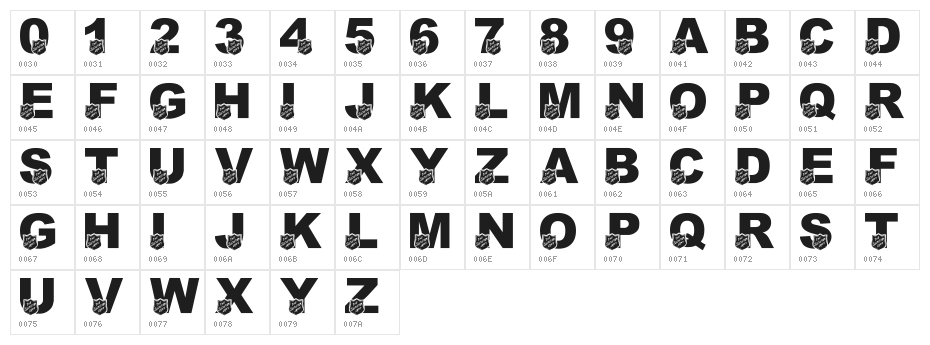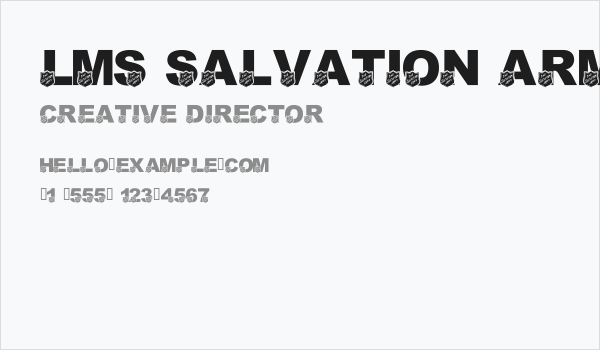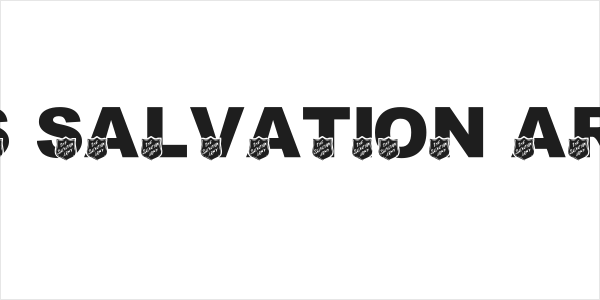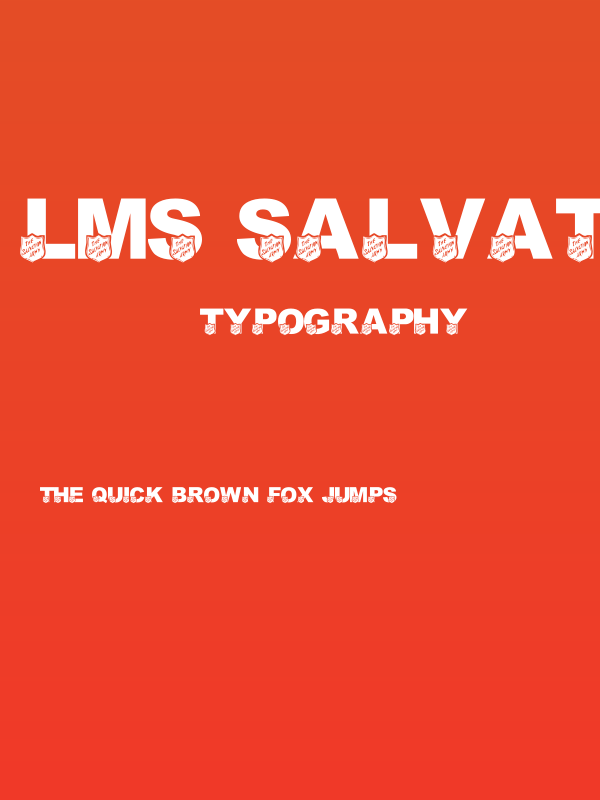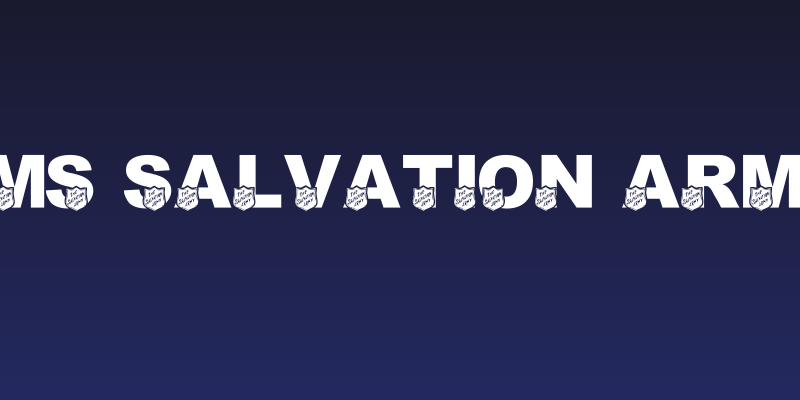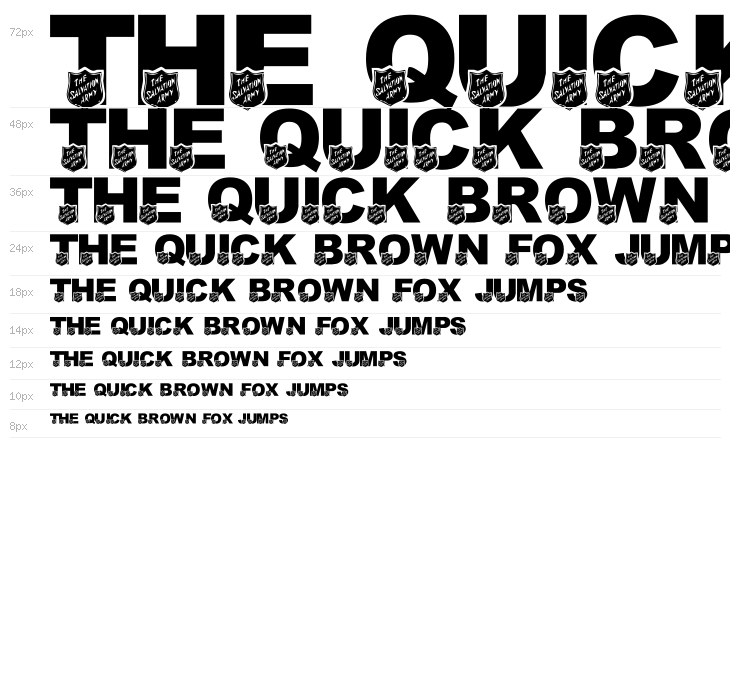
LMS Salvation Army Font
LMS Salvation Army Description
This bold and striking font features a unique design where each character is accompanied by a small shield emblem, adding a distinct decorative element. The letters are uppercase and have a strong, solid appearance, making them highly visible and impactful. The numbers follow the same style, maintaining consistency across the character set. The font's design is reminiscent of traditional signage or branding, with a modern twist due to the emblematic addition. The overall look is clean yet attention-grabbing, suitable for projects that require a bold statement.
| Proposed Projects | This font is perfect for branding, posters, and signage where a strong visual impact is desired. It can also be used in marketing materials that aim to convey strength and tradition. |